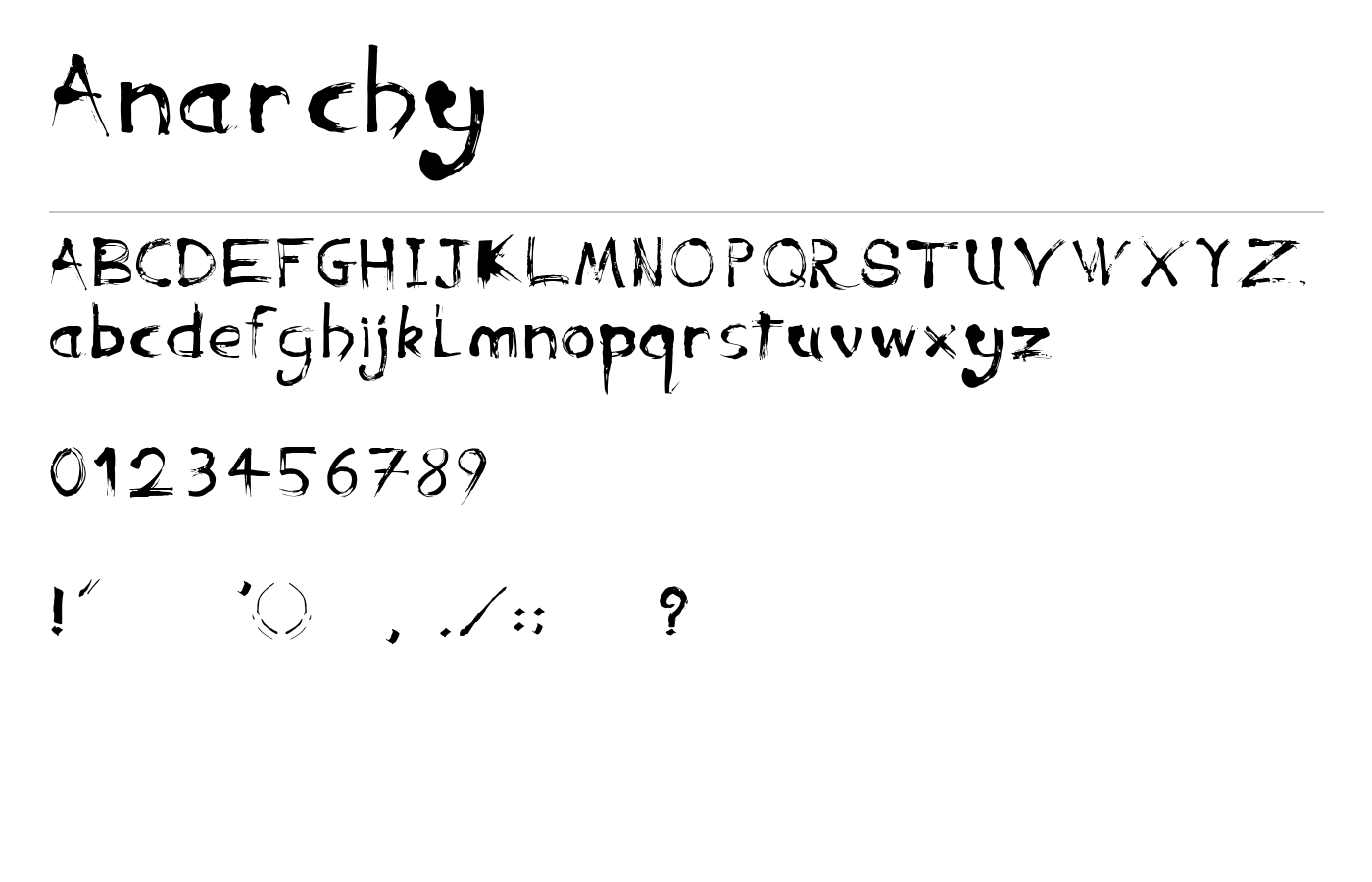
Anarchy Font is a rough, distressed sans serif typeface with an edgy, hand-drawn feel that captures a chaotic, rebellious spirit. Its uneven strokes, irregular shapes, and textured look make it perfect for designs that want to convey a raw, unconventional, or punk aesthetic. This font works well for posters, album covers, and branding that seeks to stand out with a bold, anti-establishment vibe.
Anarchy Font
About Anarchy Font